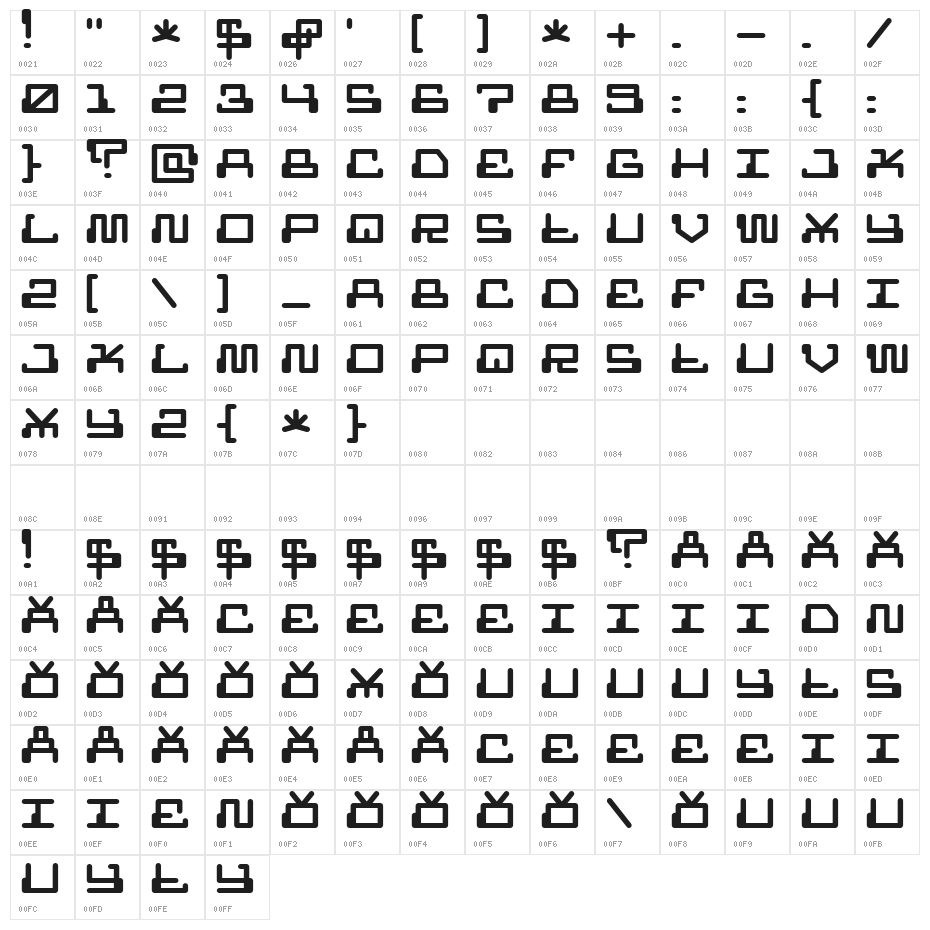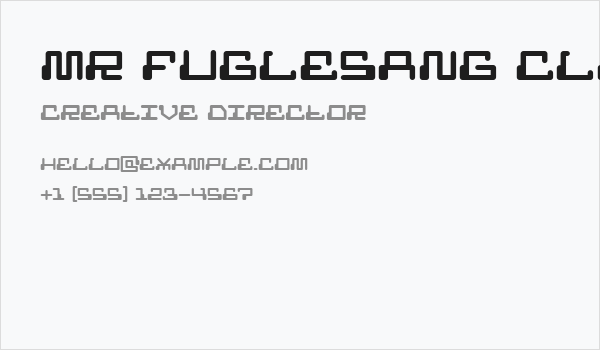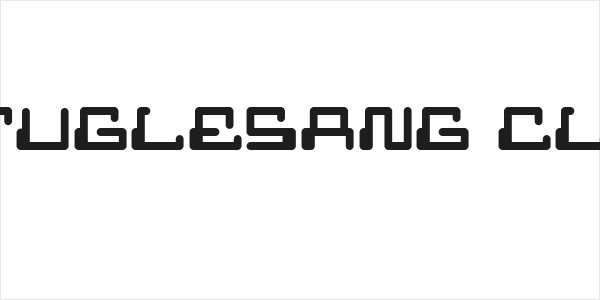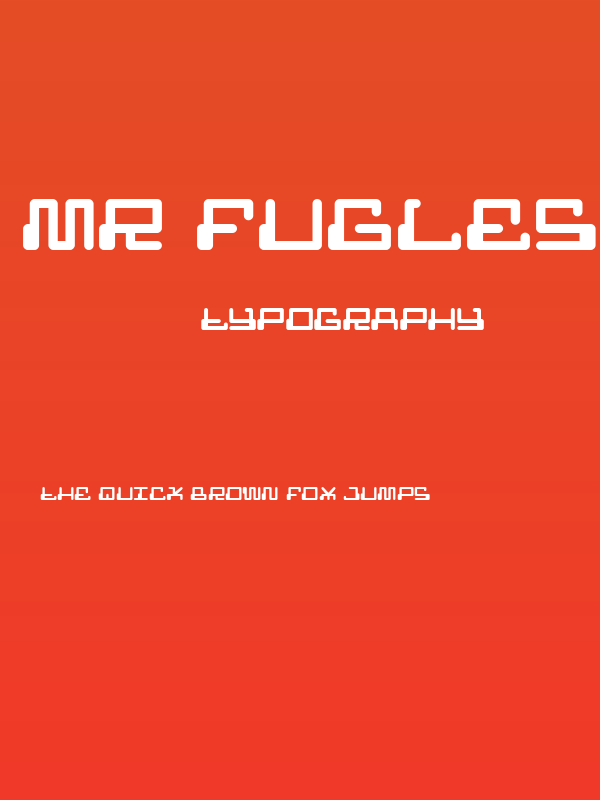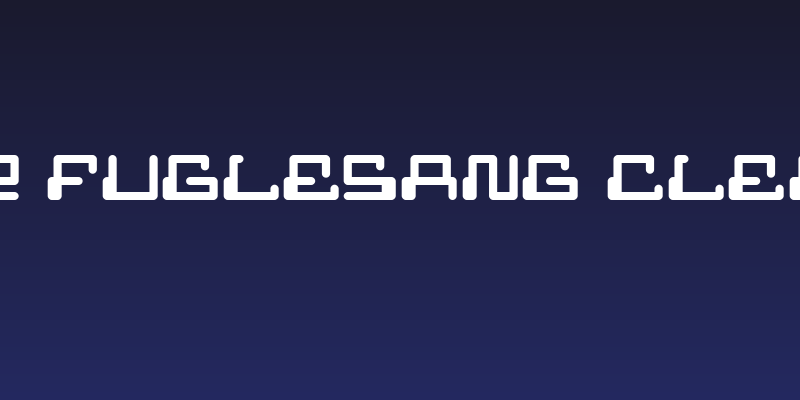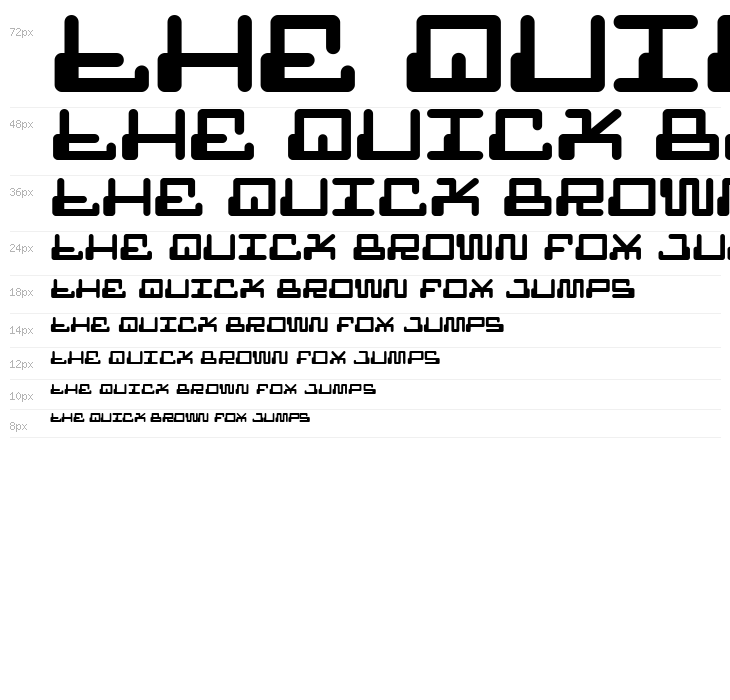
MR FUGLESANG CLEAN Font
MR FUGLESANG CLEAN Description
This font features a bold, geometric design with a distinctly modern and futuristic aesthetic. The characters are constructed with a combination of straight lines and rounded edges, creating a unique and eye-catching appearance. The uppercase and lowercase letters maintain a consistent style, with a uniform height and width that enhances readability. The numbers and special characters follow the same design principles, ensuring a cohesive look across all elements. The font's boldness and distinct style make it suitable for projects that require a strong visual impact.
| Proposed Projects | Ideal for technology branding, sci-fi themed designs, video game interfaces, and modern advertising. |